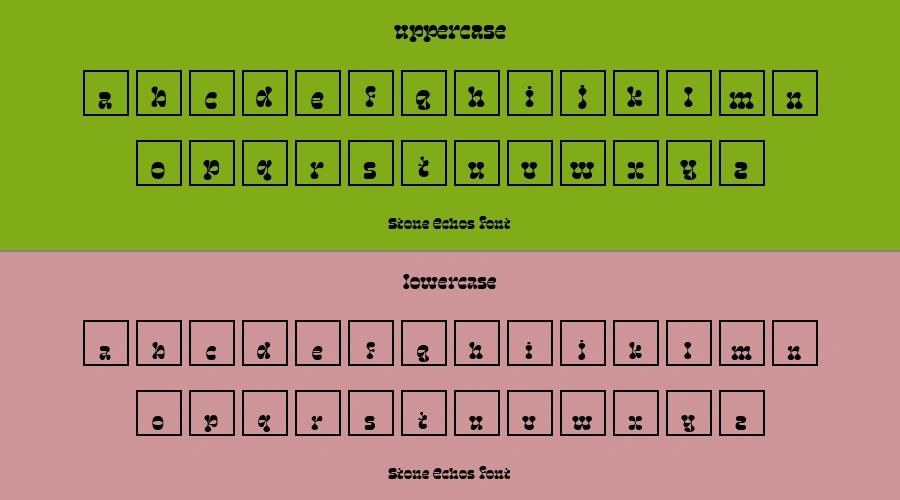
About Stone Echos Font
Stone Echos Font embodies typographic excellence through its masterful combination of artistic freedom and visual impact. Created for exhibition design, this typeface delivers exceptional versatility and design innovation across all applications. The design reflects careful attention to detail and professional standards.
Advanced capabilities include distinctive original character and versatile initial forms, giving designers creative control. When used in traditional announcements, Stone Echos Font exhibits remarkable math typesetting. The harmonious balance between aperture size and regulatory compliance sets this typeface apart.